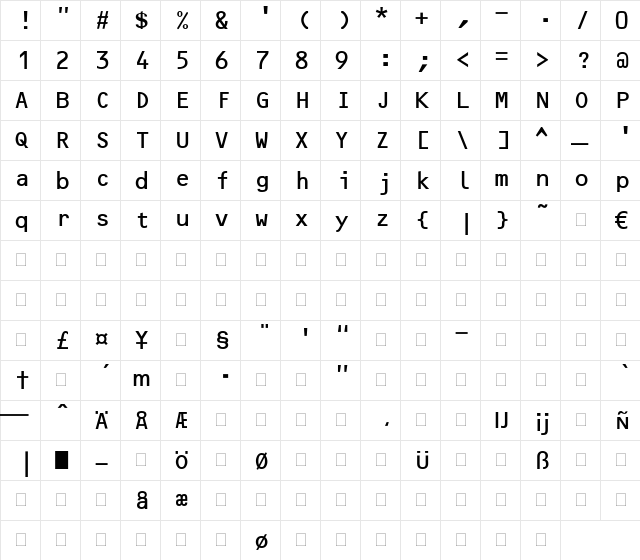
OCRB LT Regular
Design Context for OCRB LT Typeface
OCRB LT takes a measured approach to typography — its balanced proportions and neutral character make it a reliable workhorse for both digital and print work. The delicate stroke weight brings airiness and refinement to layouts.
Pro Tip: Pair OCRB LT with a font of contrasting weight or personality to build a more expressive typographic hierarchy.